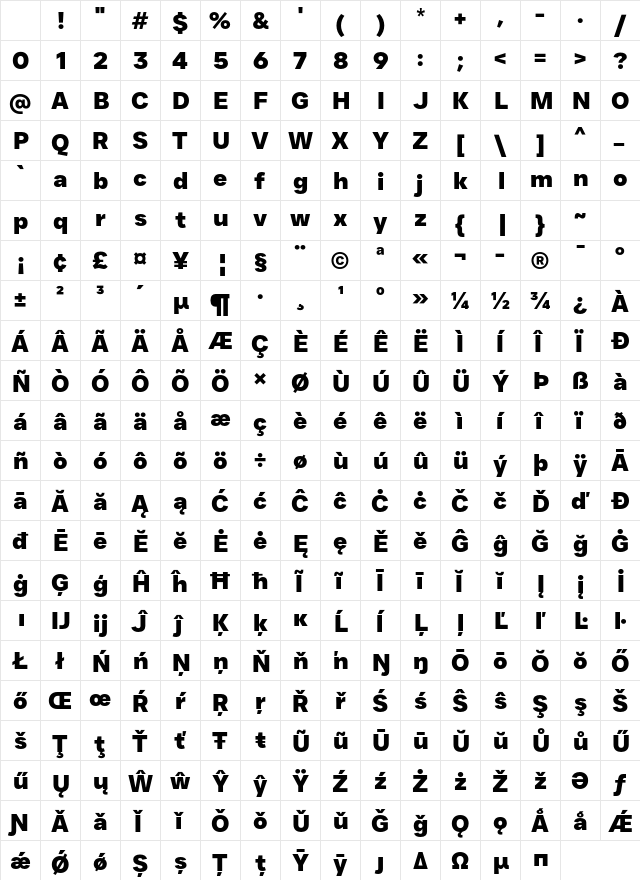
Complete JUST Sans ExBold glyph index. Displaying only characters natively supported by JUST Sans ExBold font.
JUST Sans is a composed and adaptable typeface that performs quietly and consistently across a wide range of design contexts. Its bold stroke weight gives it real presence on the page.